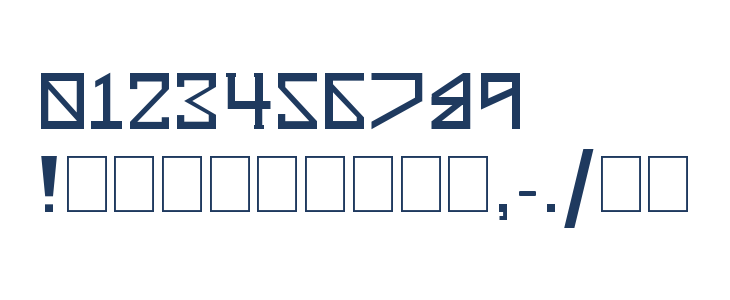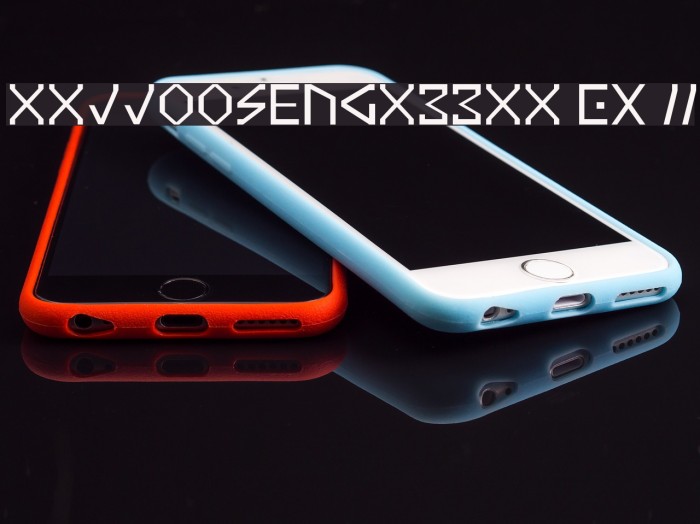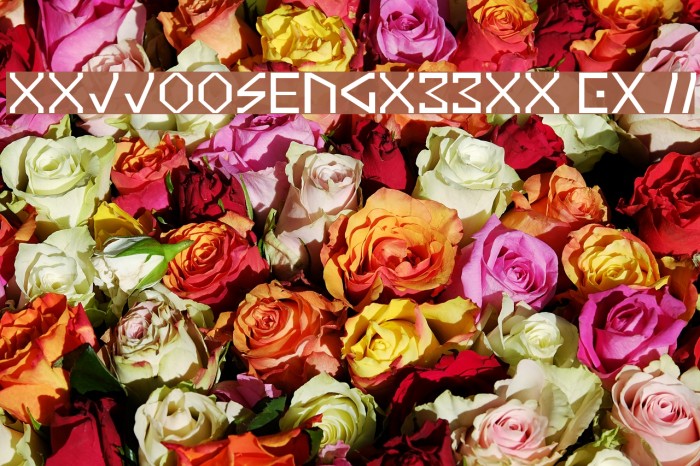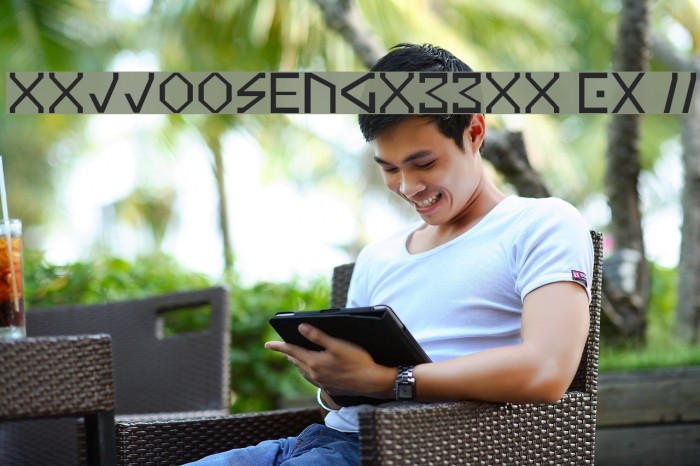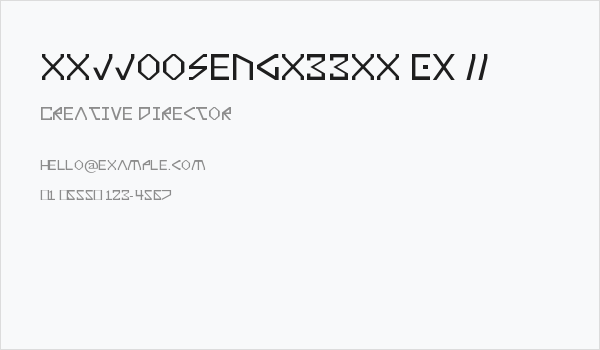
xxjjoosengx33xx EX II Font
xxjjoosengx33xx EX II Description
This font features a geometric and angular design, characterized by sharp edges and a futuristic appearance. The uppercase and lowercase letters maintain a consistent style, with distinct diagonal cuts and a bold presence. The numerals follow the same angular theme, providing a cohesive look across all characters. The special characters are uniquely styled to match the overall aesthetic, making this font suitable for modern and tech-oriented projects. Its bold and striking design makes it stand out, while the consistent line thickness ensures readability.
XXJJOOSENGX33XX-EX-II UPPERCASE
XXJJOOSENGX33XX-EX-II LOWERCASE
XXJJOOSENGX33XX-EX-II OTHER CHARS